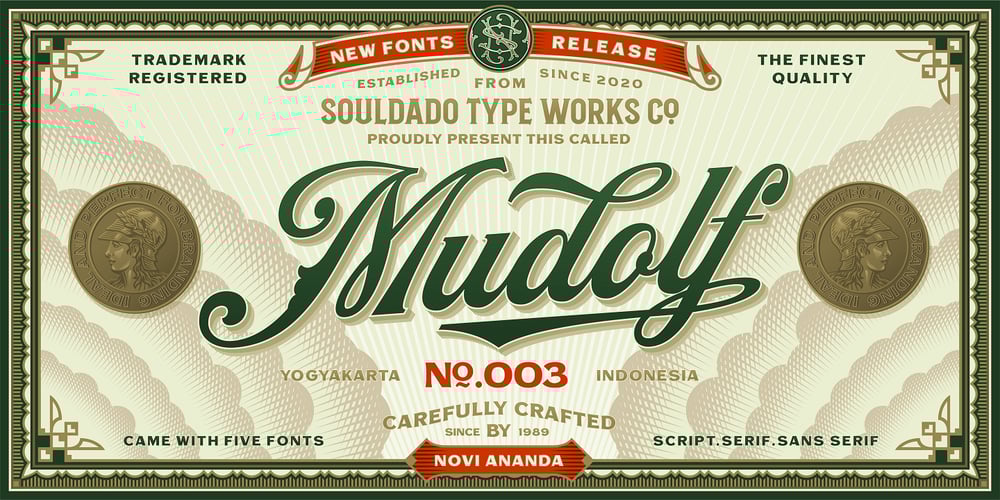
NS Mudolf Font Family was designed by Novi Ananda and published by Novi Souldado. NS Mudolf contains 5 styles and family package options. NS Mudolf is inspired by the lettering of vintage prints, signs and labels. It comes with five font styles and extra swashes, ligatures and stylistic alternates. It’s ideal and perfect for creating a design piece such as letterheads, posters, signage, charters, labels, packaging, logotypes, and more.